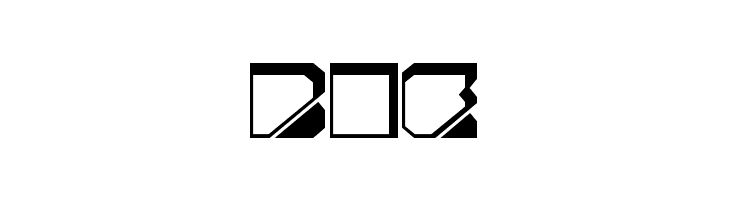
Byzantine-Normal Font
A modern font with angular and curved strokes, blending elegance with boldness.
Xirod Font
A bold, futuristic font with geometric and angular letterforms.
Def Leppard Font
A bold, angular font with a sharp, geometric design.
Battlestar Font
A futuristic, geometric font with bold, angular lines and a double-line structure.
AddSpeedy Font
A bold, angular font with a futuristic, italicized design.
Cosmic Font
A futuristic, geometric font with rounded edges and a bold style.
Paint Normal Font
A bold, brush-stroke style font with an artistic and dynamic appearance.
alarm clock Font
A digital-style font with segmented lines, ideal for tech-themed designs.
Neuropol Bold Font
A futuristic, geometric font with rounded edges and a digital appearance.
03.20 1 Font
A futuristic, geometric font with angular lines and a mechanical feel.
Switzerland Font
A bold, geometric font with a futuristic and digital design.
Neuropolitical Font
A futuristic, geometric font with sharp angles and clean lines.
Terminator Two Font
A futuristic, bold, and geometric font with angular letterforms.
a Font
Font by
Qbotype
Futurism Font
Font by Jacob Fisher - www.pizzadude.dk
A futuristic, geometric font with bold, pixelated outlines.
SquareFont Font
A bold, geometric font with a modern, monospaced appearance.
EQUINOX Font
A bold, futuristic font with sharp, angular lines and geometric shapes.
Ignis et Glacies Sharp Bold Font
Font by Zdenek Gromnica - www.futuremillennium.com
A bold, geometric font with sharp, angular edges and a modern aesthetic.
Hunter Font
A modern, clean font with geometric influences and balanced proportions.